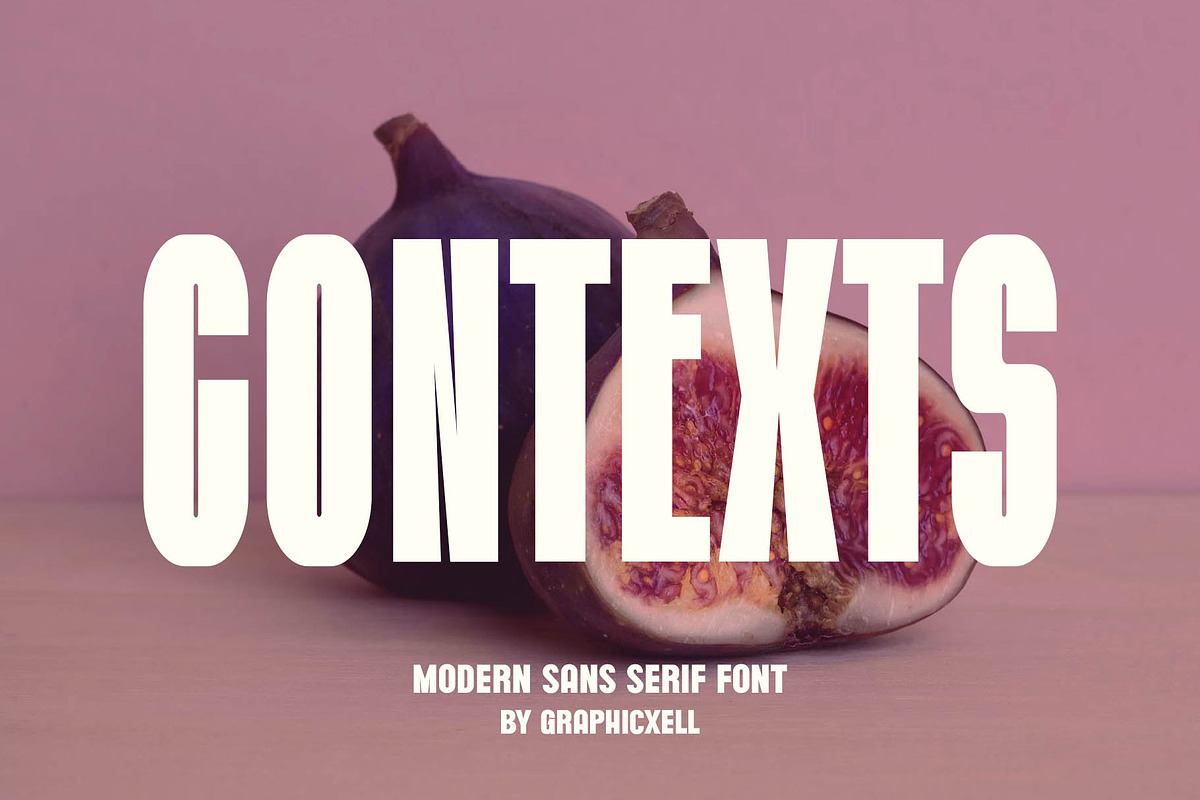
Please note, to use this font for commercial purposes, you must purchase the full version. Contexts is a modern and clean sans serif font that brings a minimalist and professional touch to your designs. With its balanced letterforms and sleek lines, this font is perfect for logos, branding, websites, editorial designs, and more. Whether you're designing for a corporate brand, a tech company, or a creative project, Contexts adds clarity and sophistication to your work. Test it out and enjoy free download access for personal use. Experience the modern, clean style of Contexts Sans Serif Font Free Download before purchasing the commercial license. Add a professional, contemporary touch to your designs with Contexts.